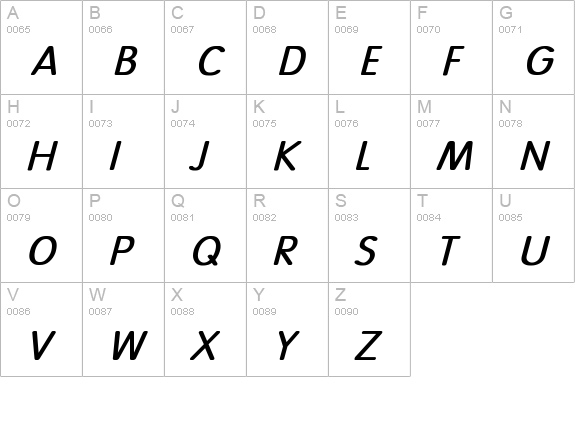
Vogue-Normal Bold Italic Font Details
Vogue-Normal Bold Italic is the standard, neutral, italic variant in the Vogue typeface family \xE2\x80\x94 well suited to general body text, paragraphs, and standard typographic work.
Introducing Vogue-Normal Bold Italic font, a stunning typeface that effortlessly combines elegance and modernity. This font exudes confidence and sophistication, making it the perfect choice for any design project that calls for a touch of glamour. Vogue-Normal Bold Italic boasts clean lines and sharp angles, creating a visually striking aesthetic that captures attention with its boldness. Its italicized form adds a subtle yet impactful twist, infusing your text with a sense of dynamism and flair. This font is not only visually captivating but also highly versatile, making it suitable for a wide range of applications. From fashion magazines and editorial spreads to luxury branding and high-end event invitations, Vogue-Normal Bold Italic adds a touch of refinement to any design. One of the most appealing aspects of Vogue-Normal Bold Italic is that it is freely available to download at FontsMarket.com. This means that you can enhance your creative endeavors without any financial constraints. Whether you are a professional designer or an enthusiastic hobbyist, this font opens up a world of possibilities without any barriers. With its sleek and stylish appearance, Vogue-Normal Bold Italic font is a true statement-maker that will elevate your designs to new heights. Experience the allure and charm of this typeface and unleash your creativity with its bold, italicized form. Download Vogue-Normal Bold Italic today from FontsMarket.com and embark on a journey of design excellence.